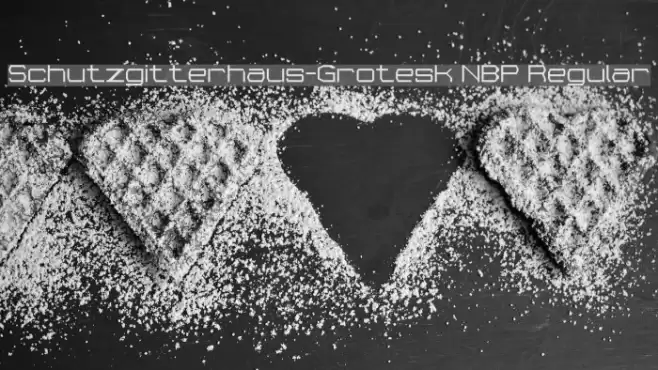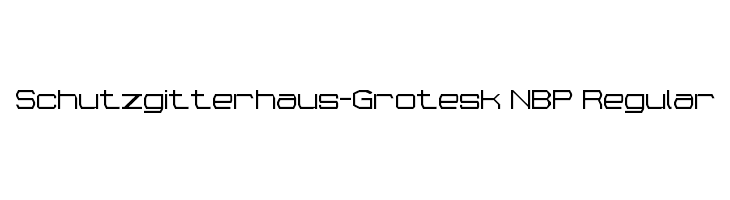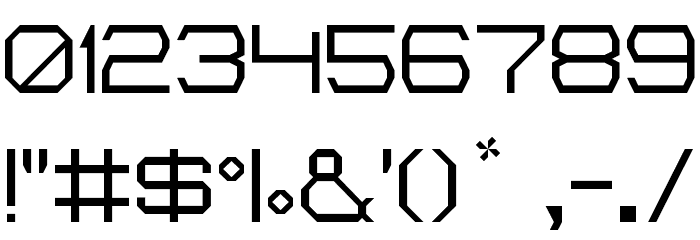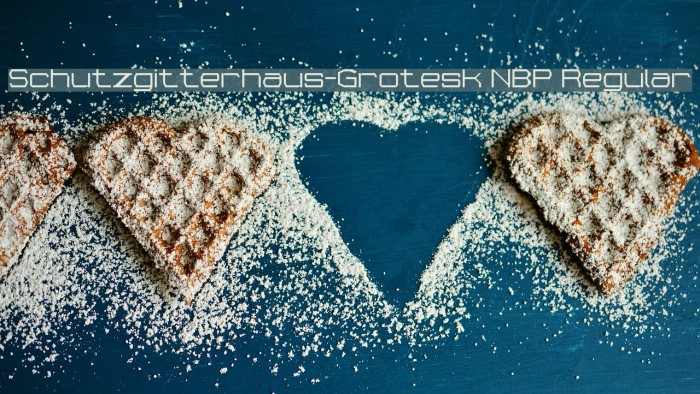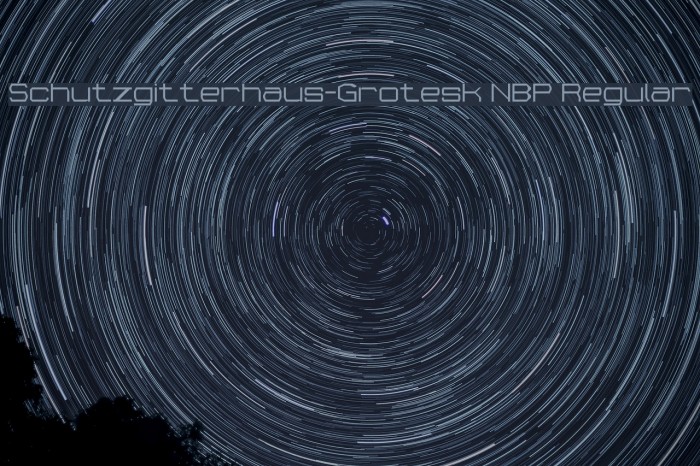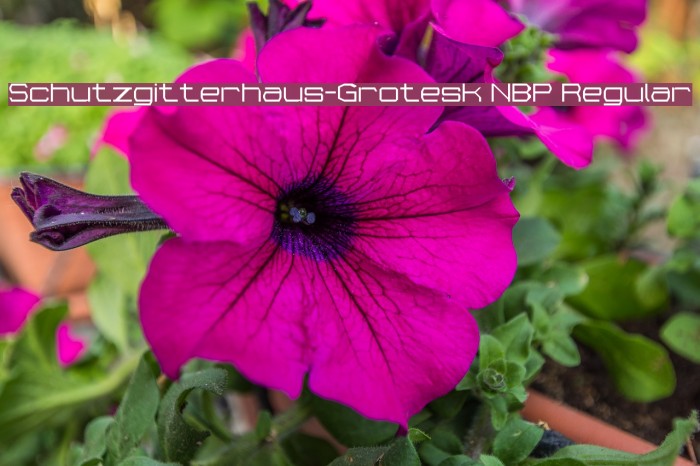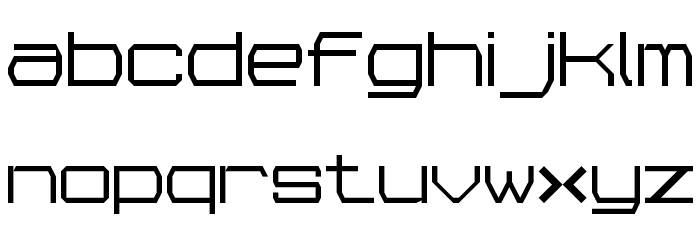
Schutzgitterhaus-Grotesk NBP Regular Font
Schutzgitterhaus-Grotesk NBP Regular Description
This font features a geometric and angular design, characterized by its sharp edges and modern aesthetic. The uppercase and lowercase letters maintain a consistent structure, with a focus on straight lines and minimal curves. The numerals and special characters follow the same design principles, ensuring uniformity across all glyphs. The overall appearance is clean and futuristic, making it suitable for projects that require a contemporary and tech-inspired look. Its unique style sets it apart from traditional fonts, offering a distinctive visual appeal.
A geometric, angular font with a modern and futuristic design from Uncategorized fonts.
- Proposed Projects: Ideal for technology branding, digital interfaces, sci-fi themed projects, and modern advertising.
- Use Case: Logos, Headlines, Digital Interfaces